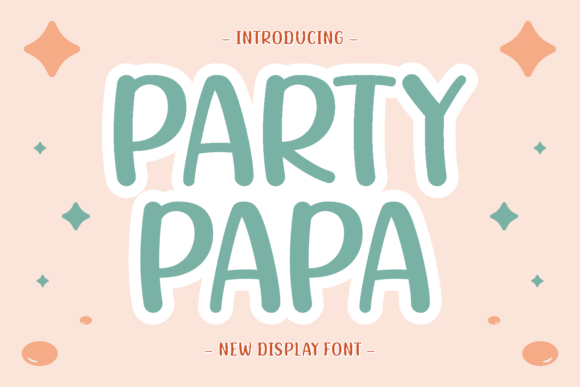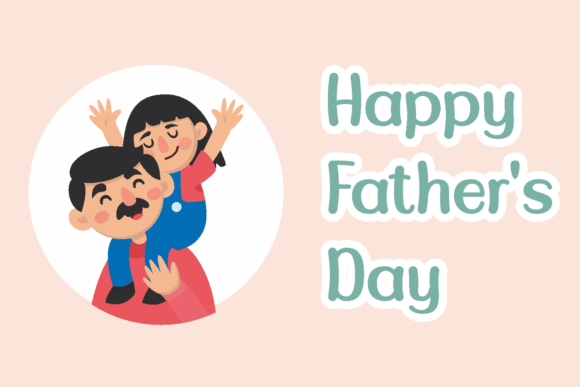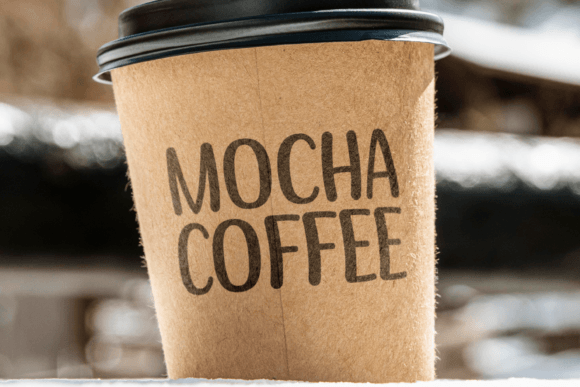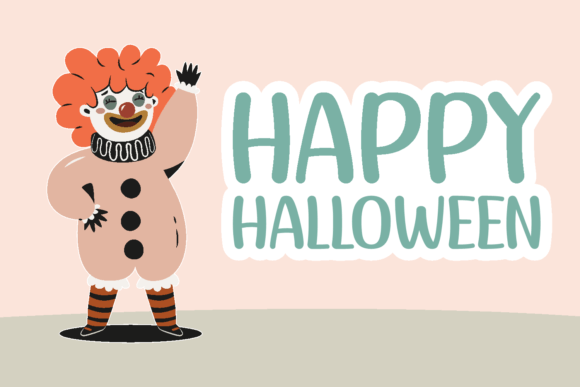
Party Papa Font
About the Party Papa Font
From logos to headlines, the Party Papa Font is the perfect choice for making a lasting impression. Party Papa is a sweet and friendly display font. Its natural and unique style makes it incredibly fitting to a large pool of designs. The only limit is your imagination!
Party Papa’s playful, rounded forms make it ideal for headlines, logos, short text blocks on posters, and packaging for products targeting a younger demographic or those with a fun, approachable brand identity. It’s less suitable for body text or UI elements requiring high readability at smaller sizes. The uneven stroke weights might hinder legibility in extended use.
To complement its friendly personality, consider pairing Party Papa with a clean sans-serif like Open Sans for body copy or a more geometric sans-serif like Futura for a modern contrast. For a touch of elegance, a delicate serif such as Garamond could work well, providing a balance between playfulness and sophistication.
Party Papa’s overall personality is best described as cheerful and approachable. Its unique forms and friendly nature make it perfect for projects emphasizing fun and approachability.